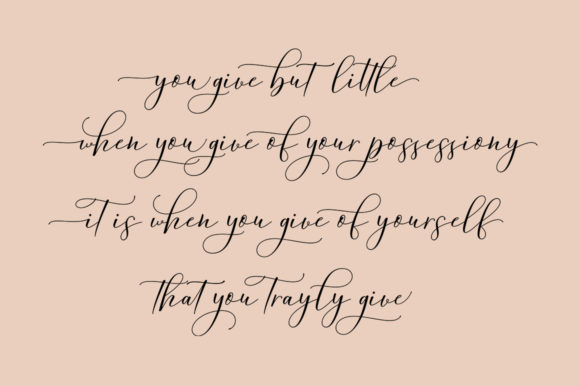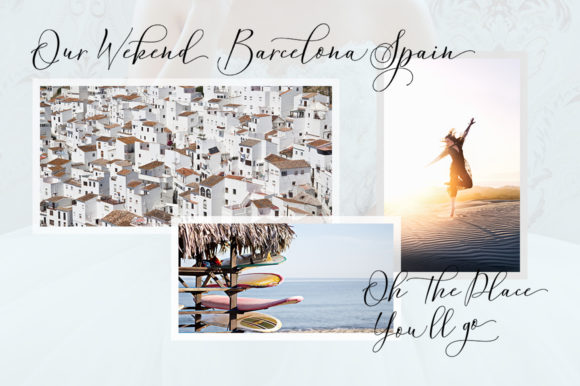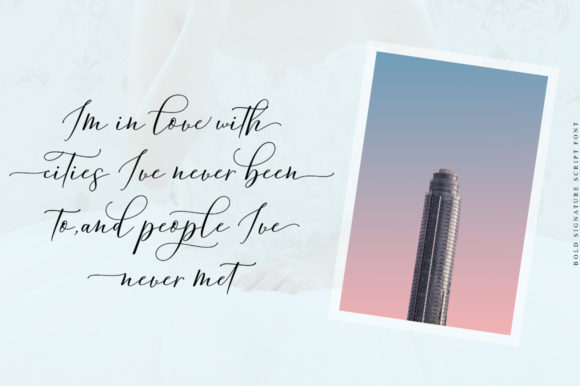
Introduction to Amorra Script Font
Amorra Script is a calm and beautiful script font with a bold feel.
| 👤 Author | Zane Studio |
Use it to add a natural elegance to any design project .
Key Features of Amorra Script Font
Why Choose Amorra Script Font?
Amorra Script Font offers exceptional quality and versatility, making it a valuable addition to your design toolkit. Whether you’re creating for personal projects or commercial use, Amorra Script Font delivers professional results.